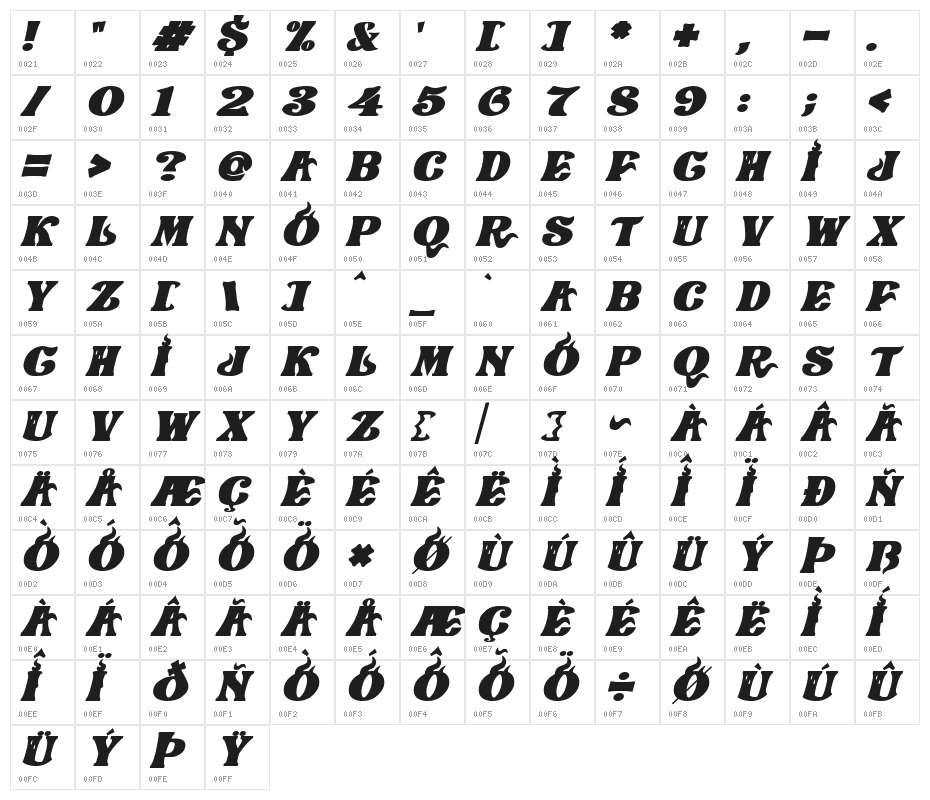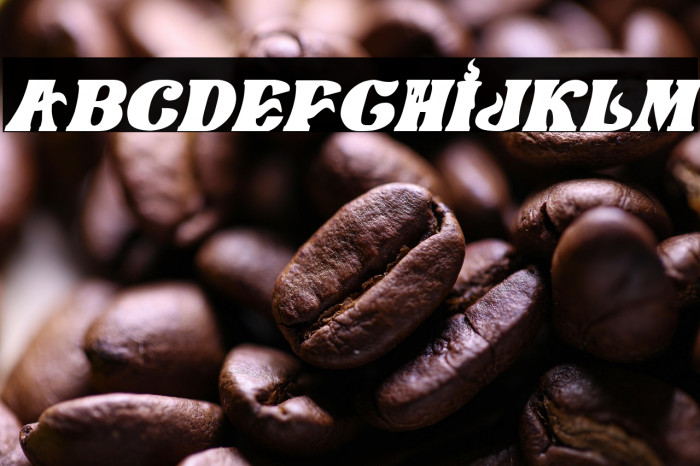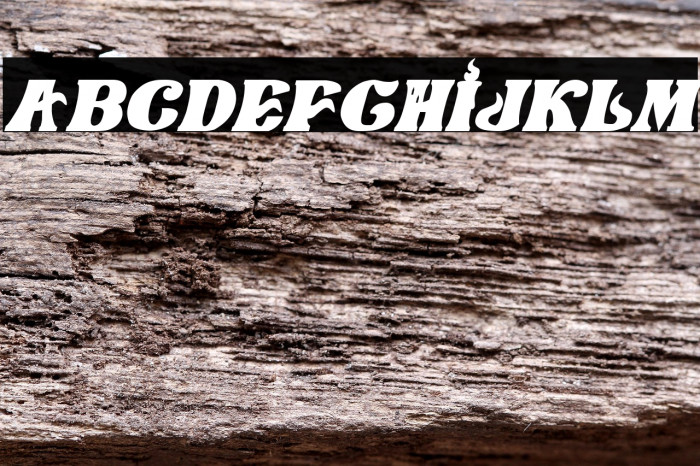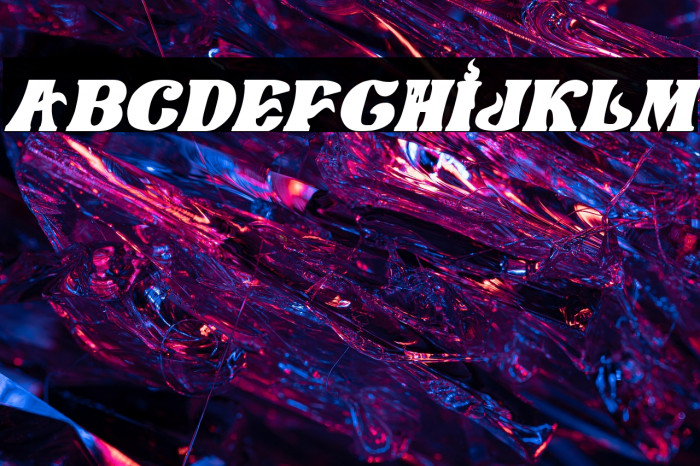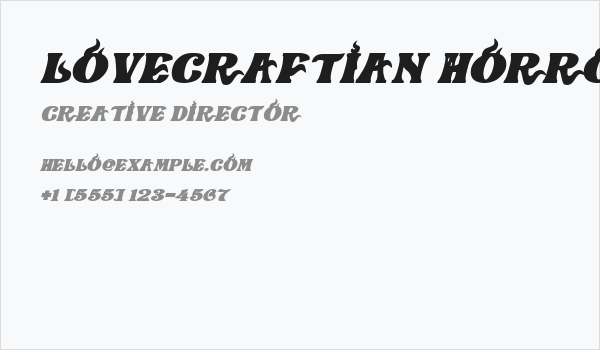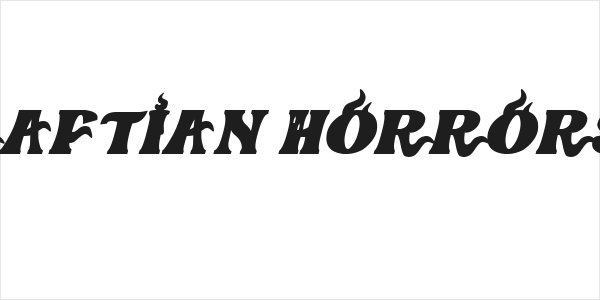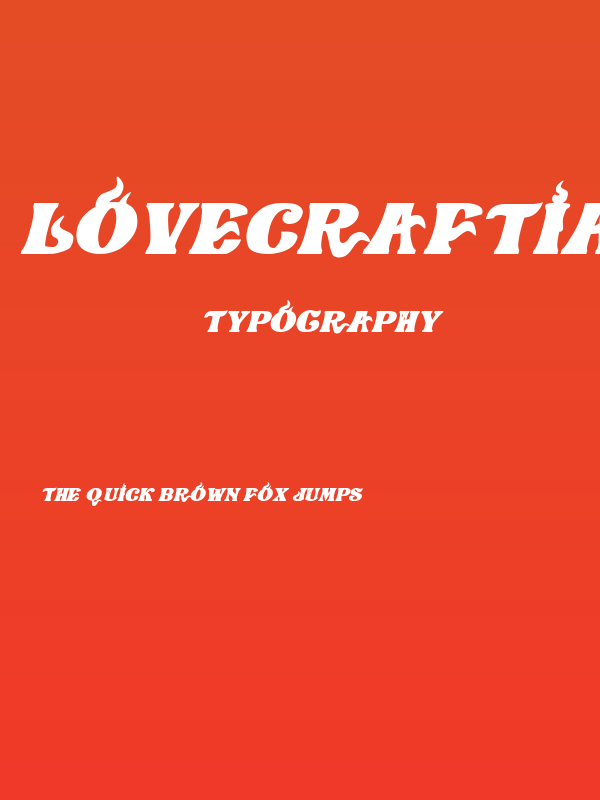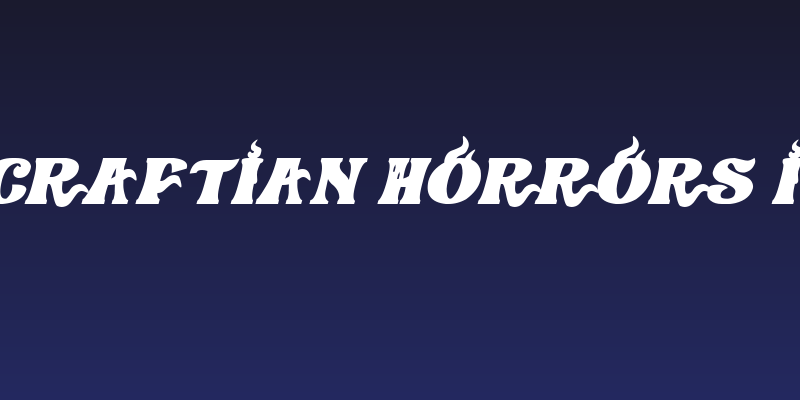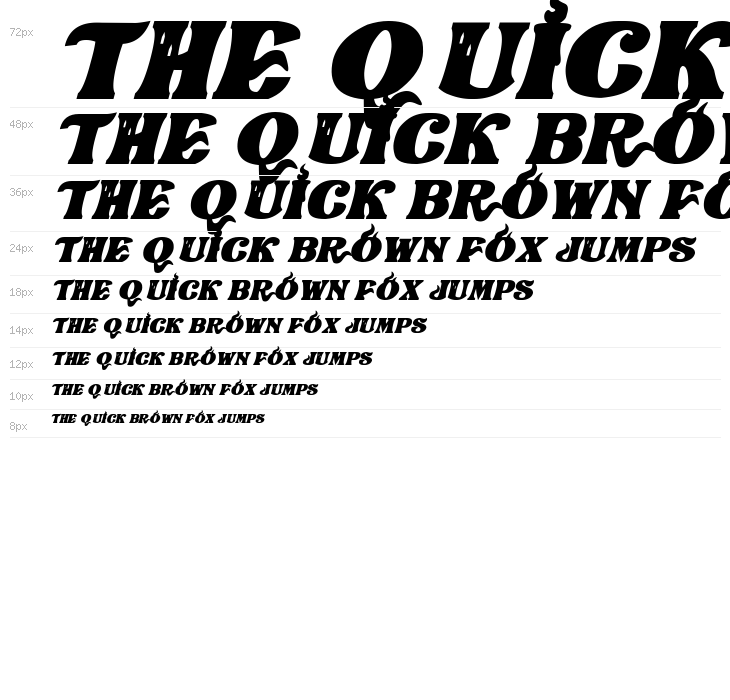
Lovecraftian Horrors Italic Font
Lovecraftian Horrors Italic Description
This font exudes a mysterious and eerie charm, with its bold and italicized characters that seem to twist and curl like tendrils of smoke. The uppercase and lowercase letters are designed with unique flourishes that give them a sense of movement and otherworldliness. The numbers and special characters maintain this theme, adding to the font's cohesive and haunting aesthetic. Its bold weight and medium contrast make it stand out, while the character spacing is slightly tight, enhancing its dramatic effect. This font captures a Lovecraftian horror vibe, perfect for creating an unsettling and captivating visual experience.
| Proposed Projects | Ideal for horror-themed posters, book covers, video game titles, and Halloween event promotions. |